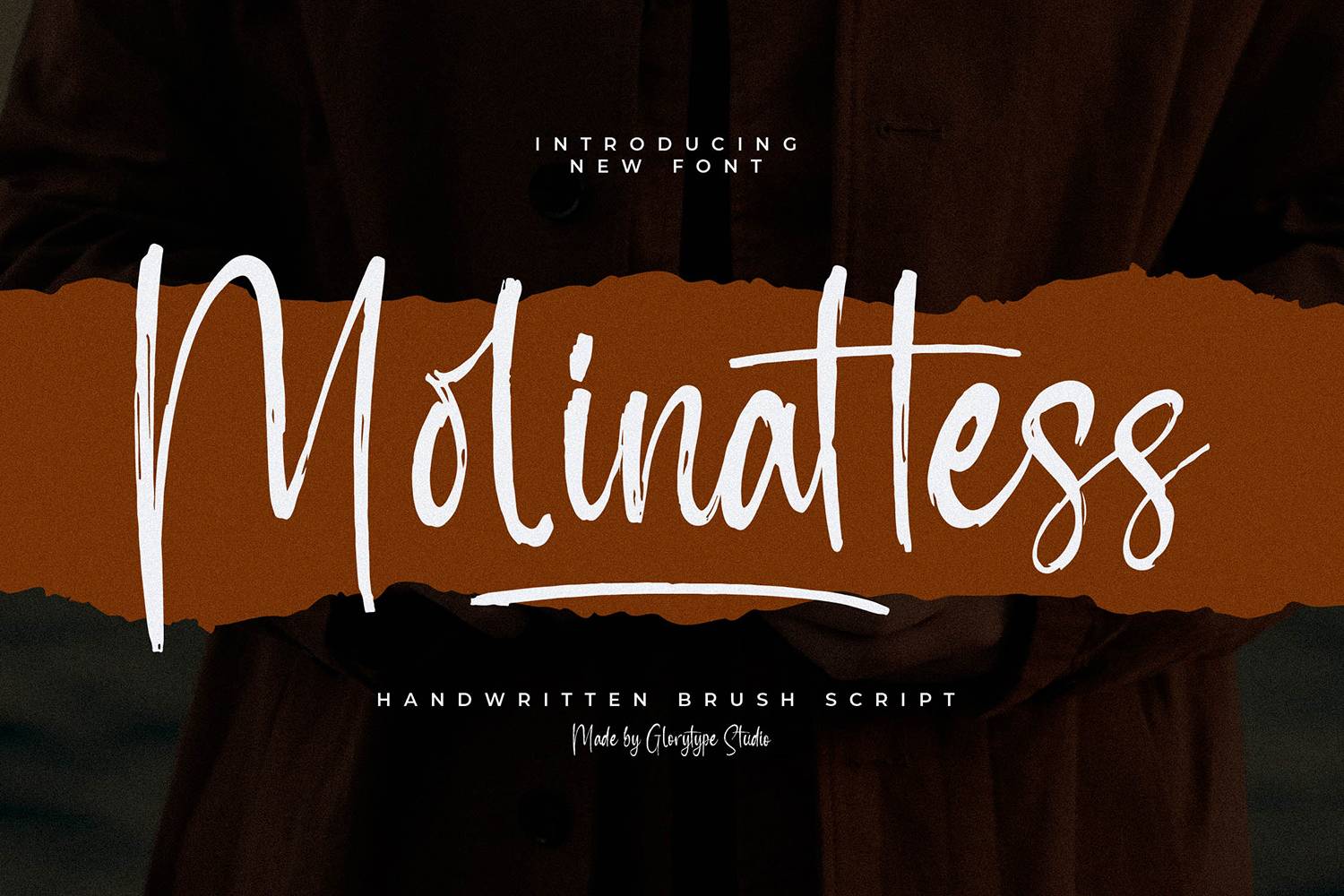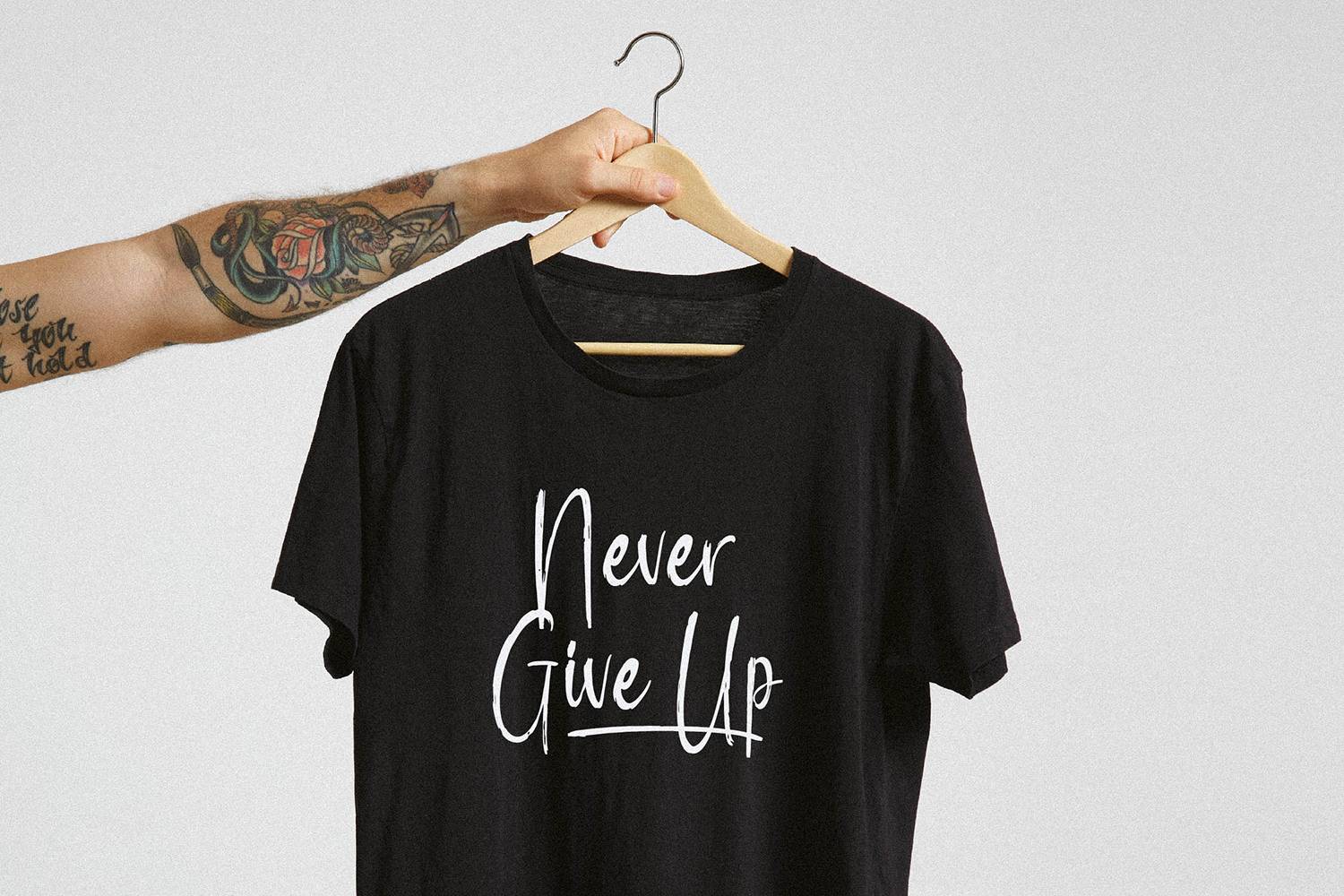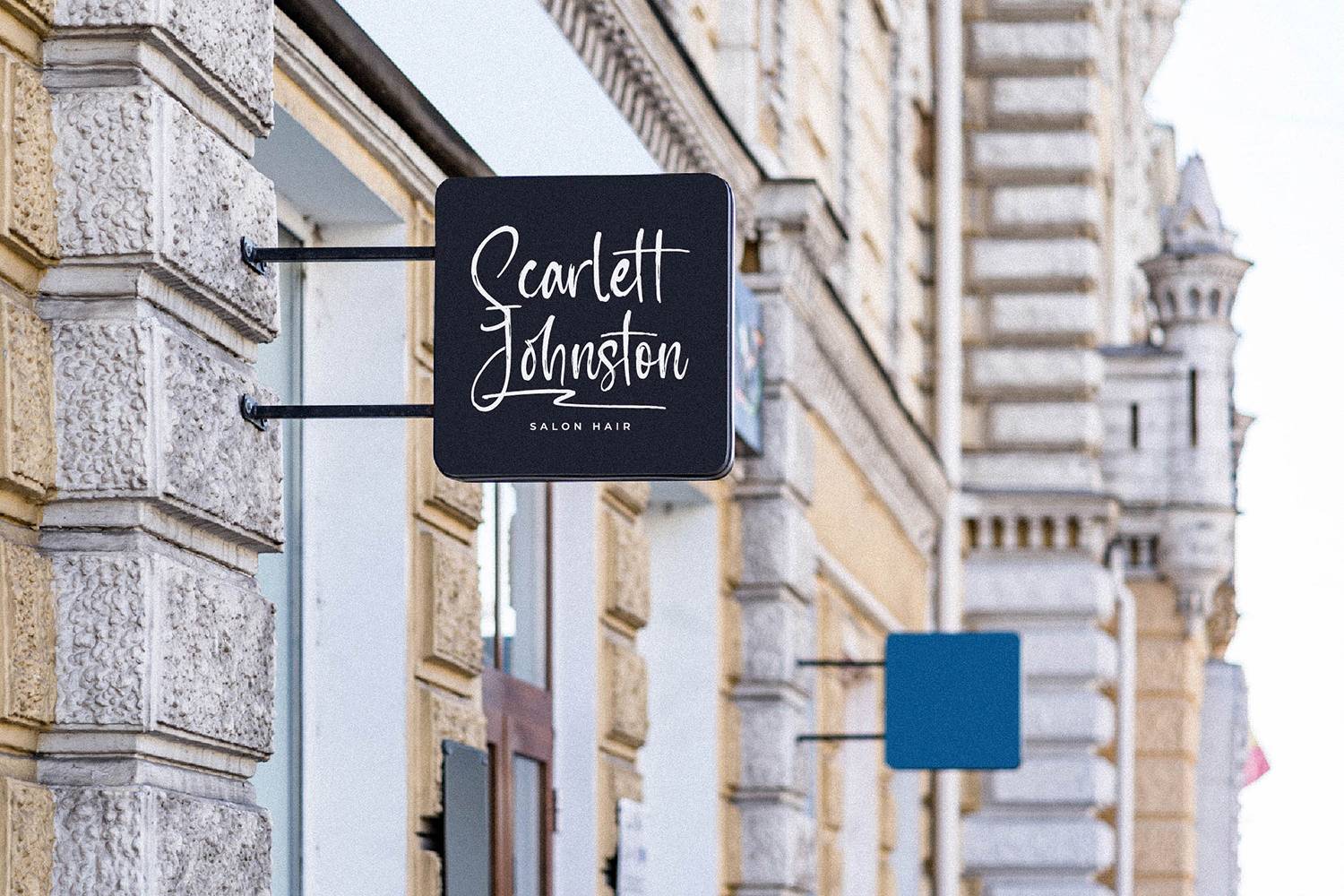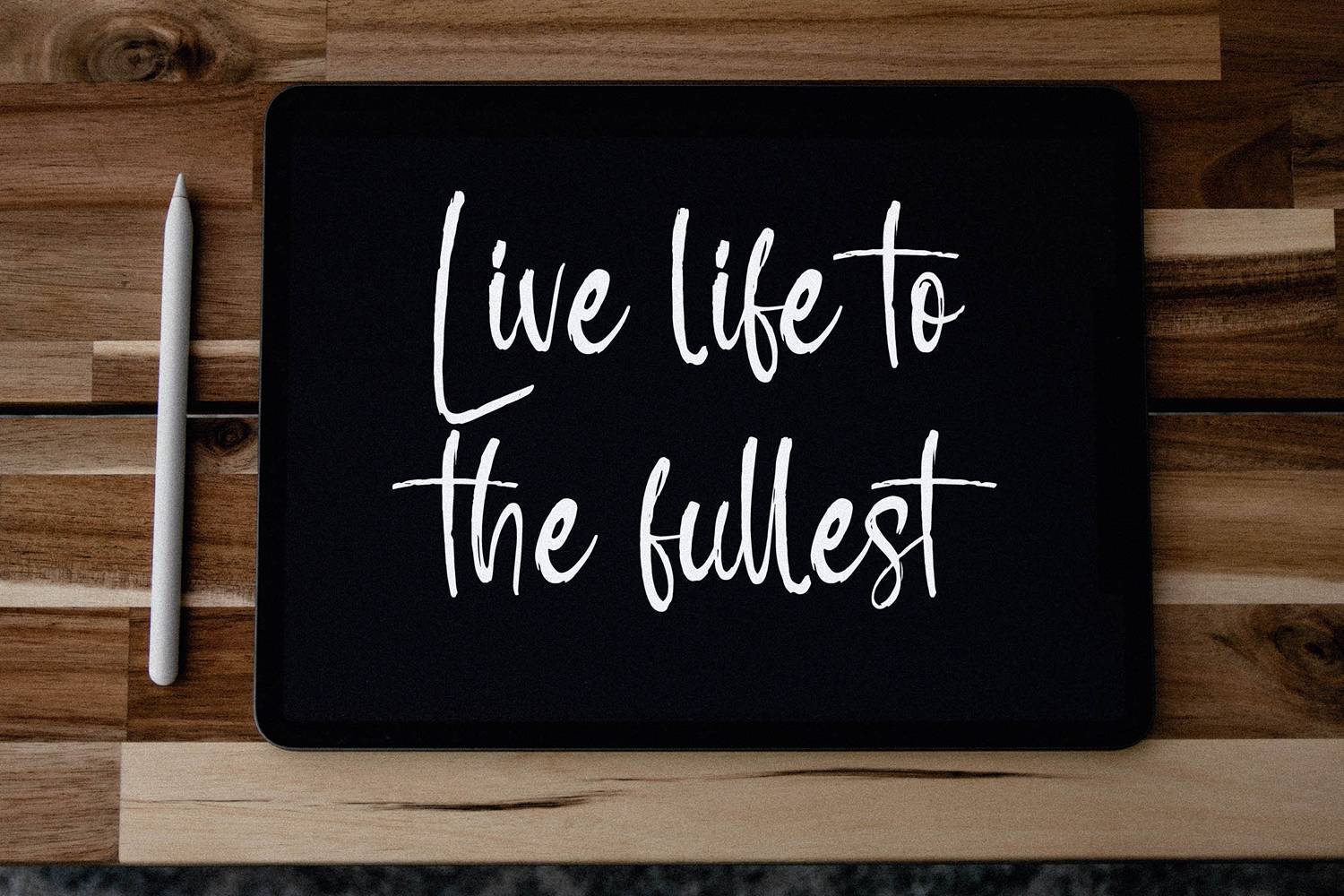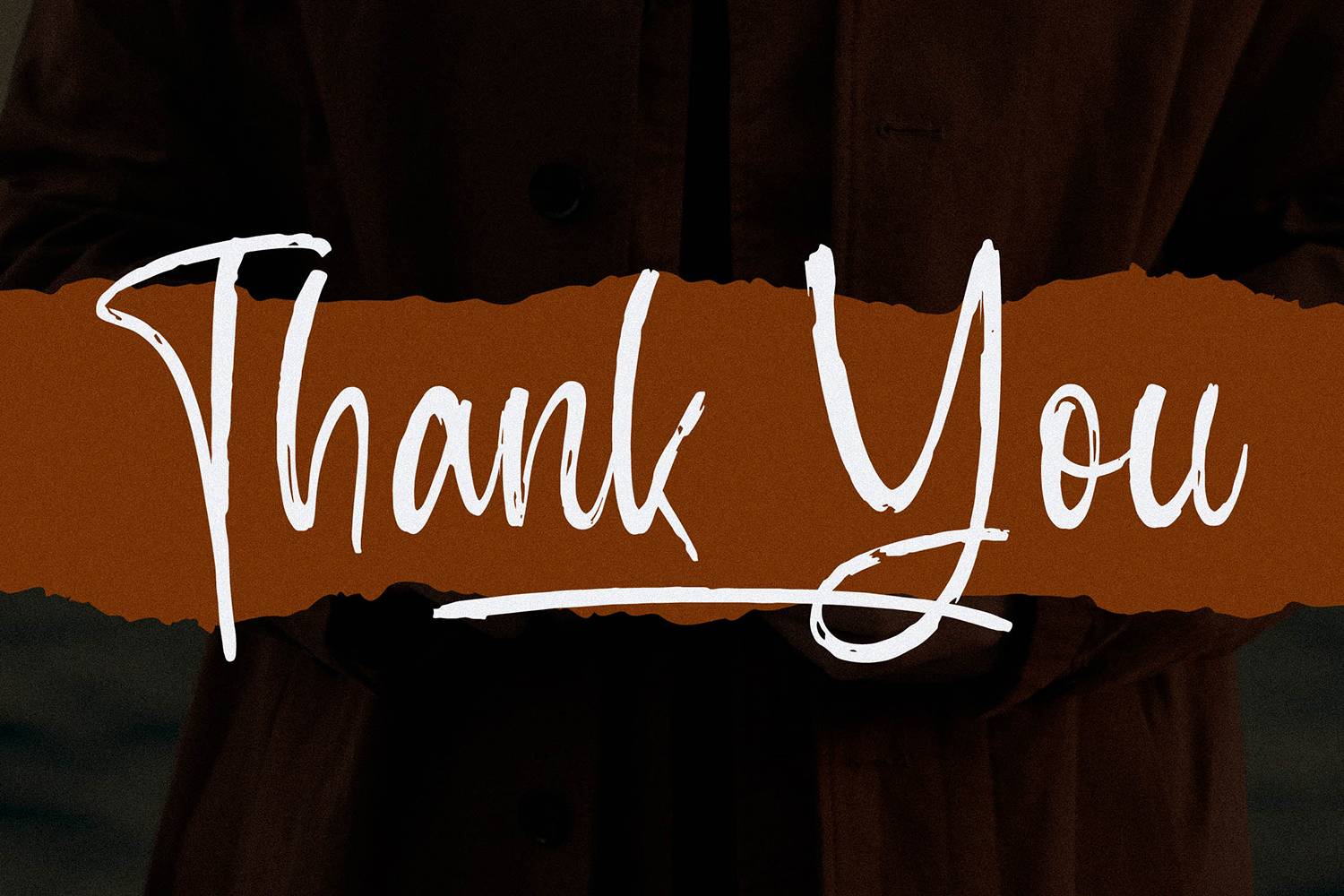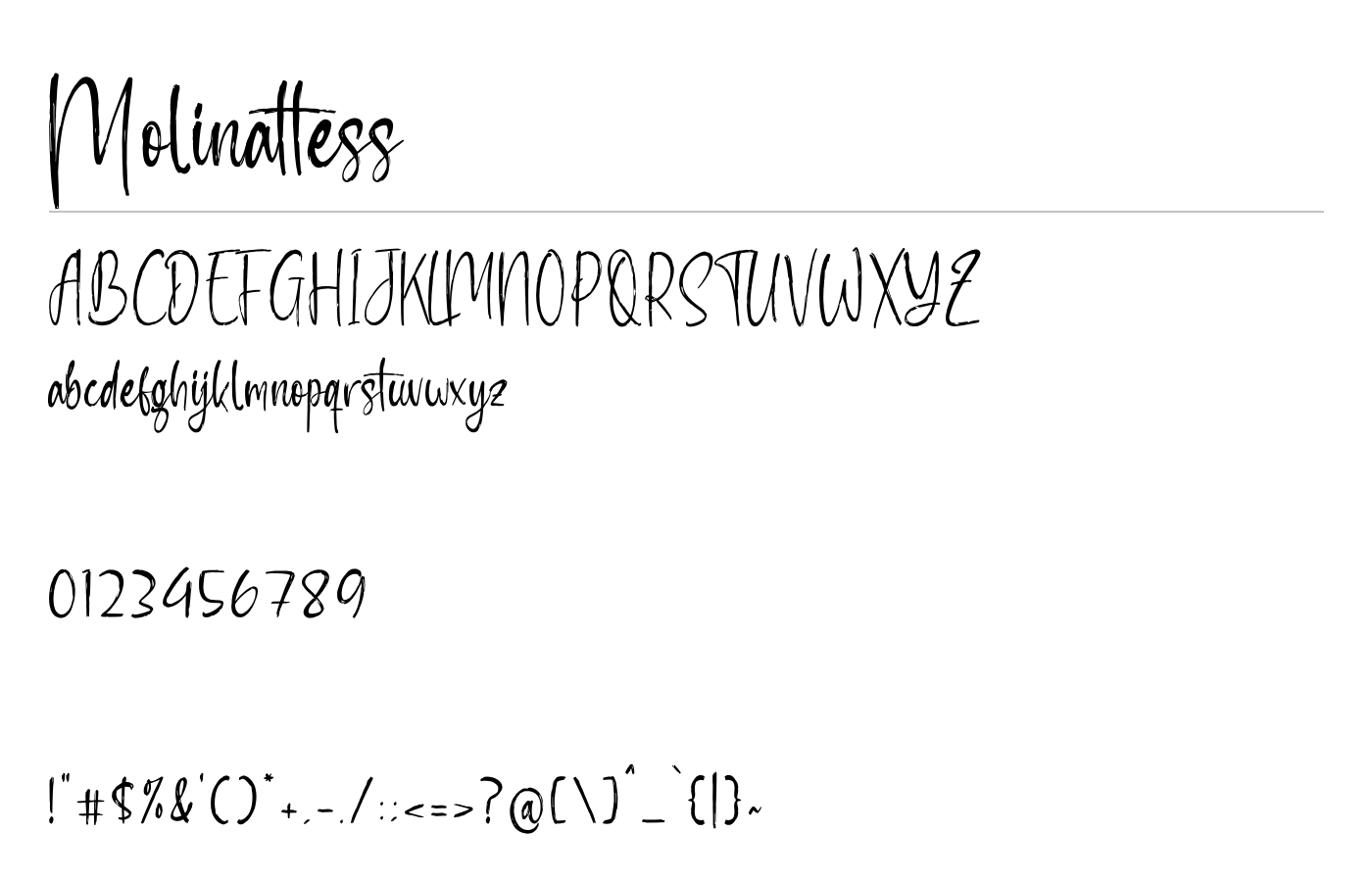
Molinattess is a casual, handwritten script font with a tall, narrow structure and a delicate, slightly irregular stroke that gives it a charming, personal touch. Its light weight and airy spacing make it perfect for informal, creative designs like invitations, branding for artisanal products, or social media graphics where a friendly and approachable vibe is desired. This font’s unique, organic feel adds warmth and personality, making it ideal for projects that benefit from an authentic, handcrafted look.
Molinattess Font
About Molinattess Font